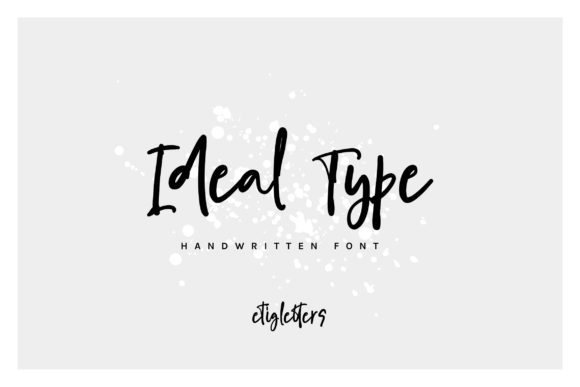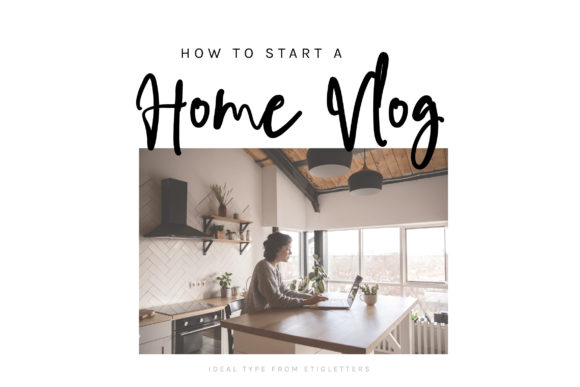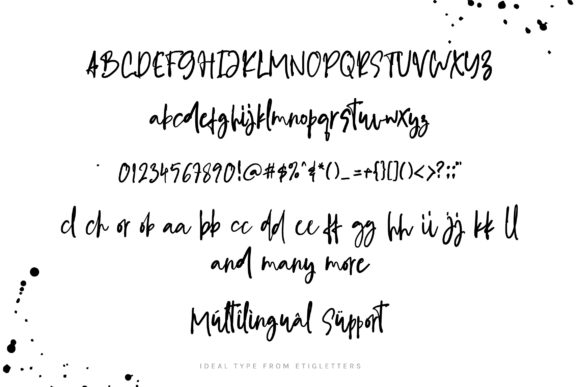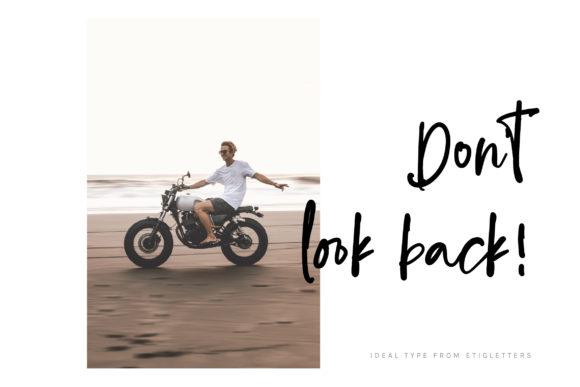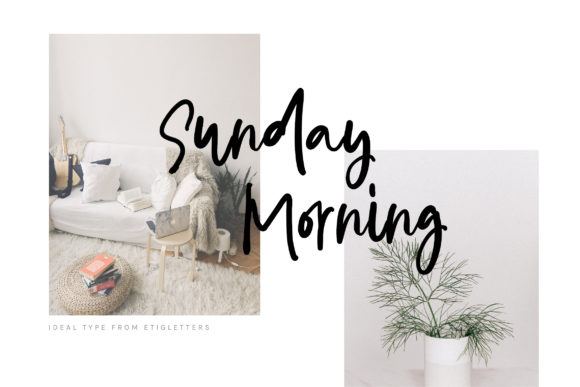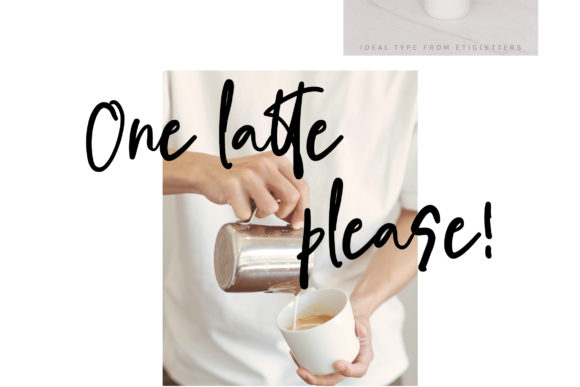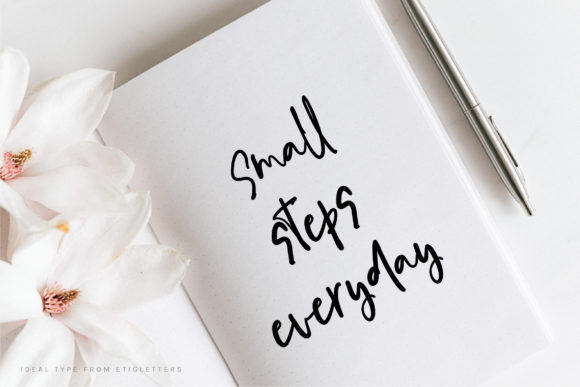
Ideal Type Font
About Ideal Type Font
Ideal Type is a flowing handwritten font. Its casual charm makes it appear wonderfully down-to-earth, readable and, ultimately, incredibly versatile. Whether you’re looking for fonts for Instagram or calligraphy scripts for DIY projects, Ideal Type will turn any creative idea into a true piece of art!